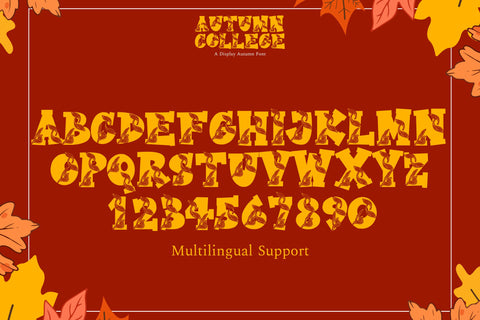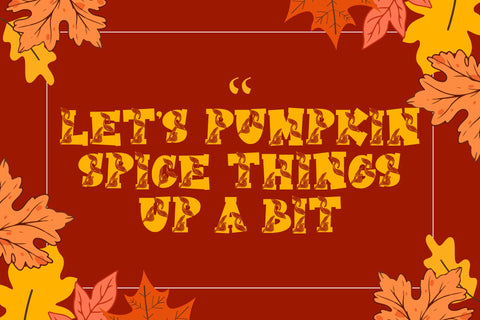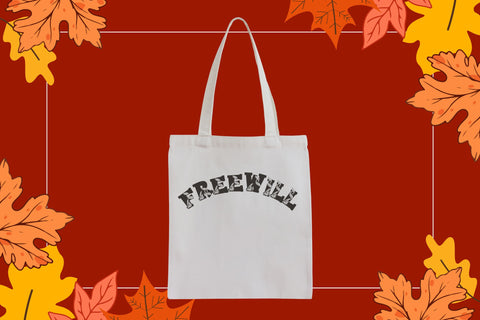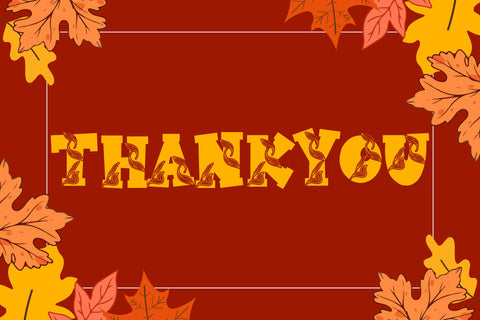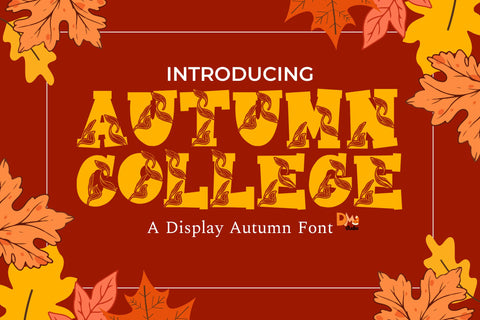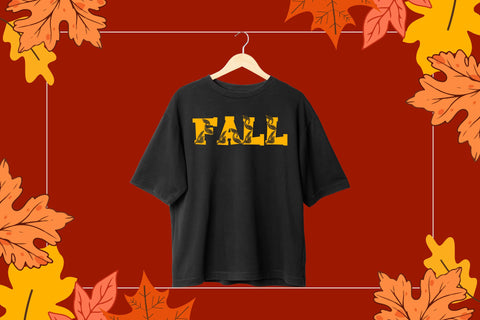
Autumn College
Autumn College is a strong and stylish typeface inspired by classic collegiate lettering with an autumn-inspired twist. Featuring bold, blocky letterforms with a nostalgic academic feel, this font is perfect for sports designs, varsity-themed projects, school branding, fall festival promotions, apparel, posters, and more. Its versatile style blends vintage athletic aesthetics with a seasonal charm, making it a standout choice for eye-catching designs.
- Classic Collegiate-Inspired Design: Bold and structured letterforms with a vintage athletic look.
- Perfect for Fall & School-Themed Projects: Ideal for varsity apparel, school branding, sports posters, and seasonal designs.
- Versatile & Eye-Catching: A strong display font suitable for various creative applications.
- Complete Character Set: Includes uppercase, lowercase, numbers, punctuation, and multilingual support.